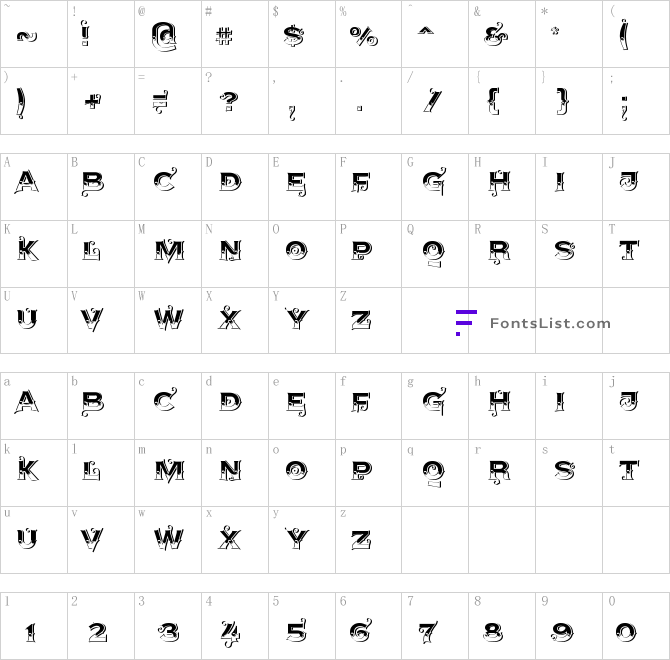
- Font Name:AgreloyS1
AgreloyS1.ttf is a very beautiful artistic font, AgreloyS1.ttf is widely used in the design and printing of various books and pictures,AgreloyS1.ttf has a strong visual impact,AgreloyS1.ttf is a commonly used font in newspapers, magazines and books, and is used in posters, e-commerce Poster design, store design, logo design, font design and other fields.AgreloyS1.